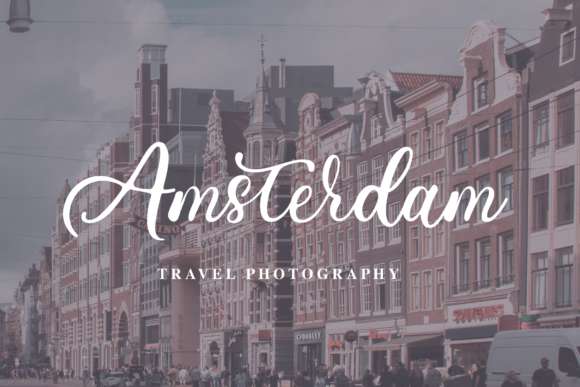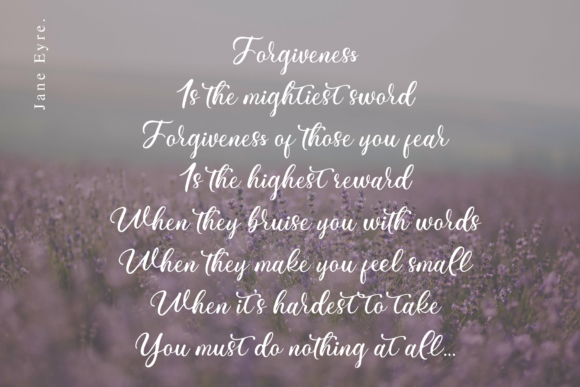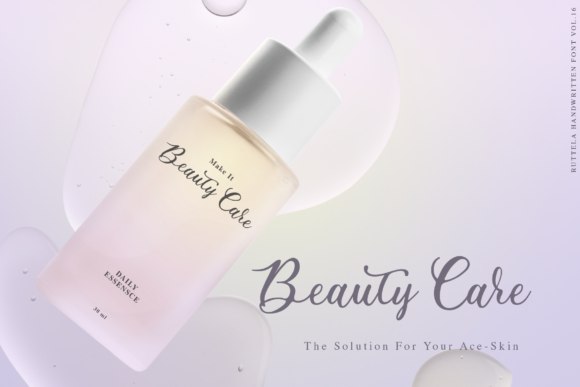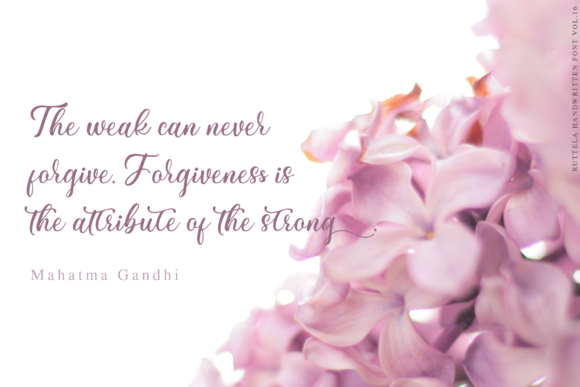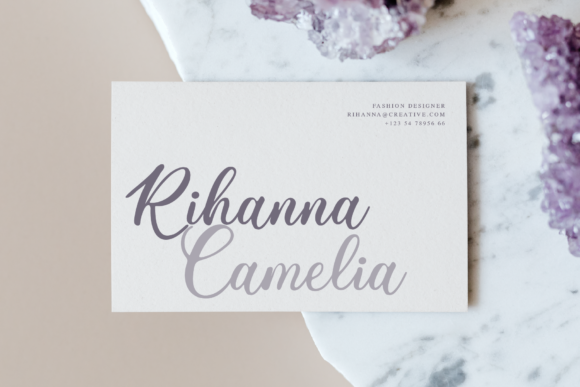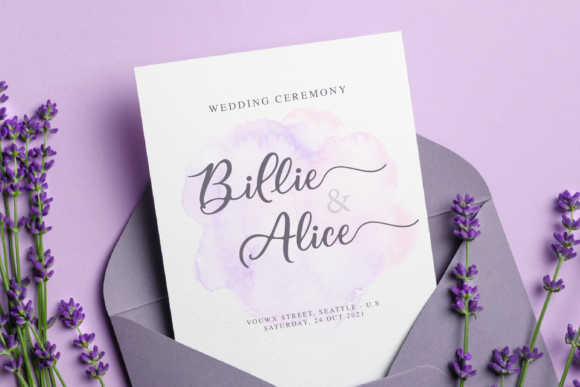
Introduction to Ruttela Font
Have you ever stared at a blank canvas, wondering where to start on your next creative project? The blank page can be intimidating, but the right tools can spark inspiration. For designers, the perfect font can be the difference between a good design and a great one. That’s where the Ruttela Font comes in – a beautiful and light handwritten font that adds a luxury spark to any project.
Whether you’re working on a branding project, creating a social media graphic, or designing a wedding invitation, the Ruttela Font is a valuable design resource that can elevate your work. With its unique feel and stunning impact, this font is sure to make a statement. And with its PUA encoding, you can access all of the amazing glyphs and ligatures with ease, giving you the freedom to get creative.
Key Features of Ruttela Font
- High-quality, unique design for creative projects and digital art
- Perfect for designers and artists looking for a distinctive, high-quality font for their creative projects
Honest Review: Ruttela Font
I recently stumbled upon the Ruttela Font, a high-quality design resource that caught my attention. This free download has been a game-changer for my creative projects, offering a unique and versatile font that can be used in various contexts.
What works well with the Ruttela Font is its ability to work seamlessly with transparent backgrounds, allowing for a sleek and modern aesthetic in any design. The font’s clean lines and elegant curves make it perfect for branding, logos, and typography-heavy designs.
- ✨ High-quality design with a modern aesthetic
- ✨ Works well with transparent backgrounds
- ✨ Perfect for branding, logos, and typography-heavy designs
However, I do have to mention that the Ruttela Font might not be suitable for projects that require a more playful or whimsical tone. Additionally, the font’s versatility can sometimes make it feel a bit generic.
Overall, I’m impressed with the Ruttela Font and would definitely recommend it as a design resource for any project that requires a clean and modern look. While it may have some limitations, its high-quality design and versatility make it a valuable addition to any designer’s toolkit.
The Ruttela Font is ideal for creative projects that require a unique and high-quality font. It’s perfect for designers, artists, and writers who want to add a touch of elegance to their work. Some common use cases include creating invitations, posters, and business cards with a transparent background.